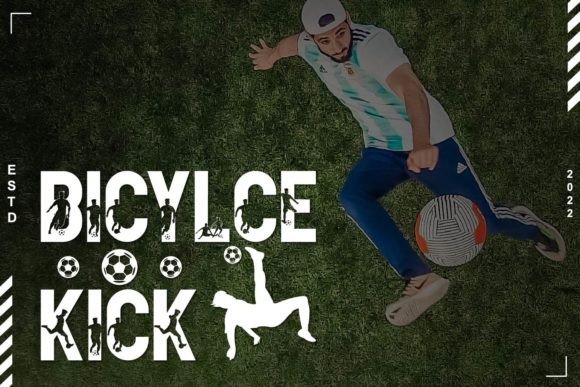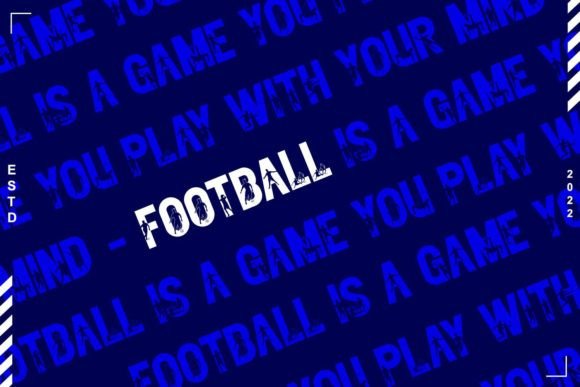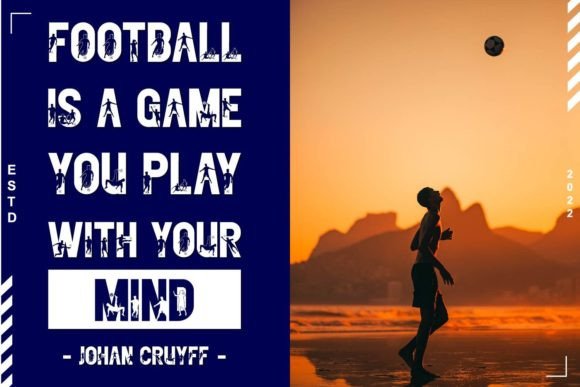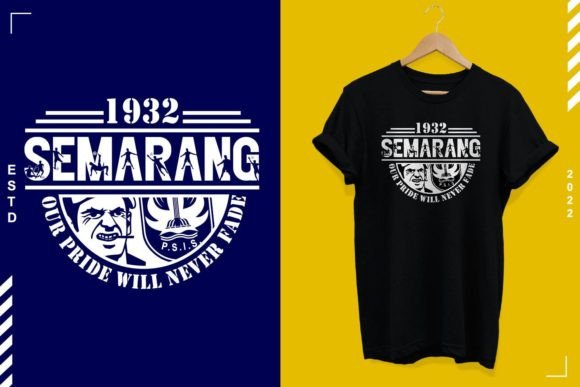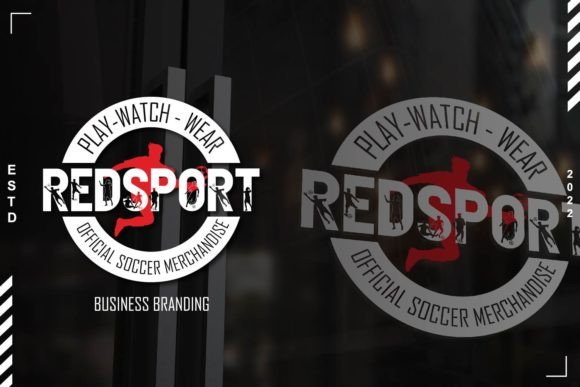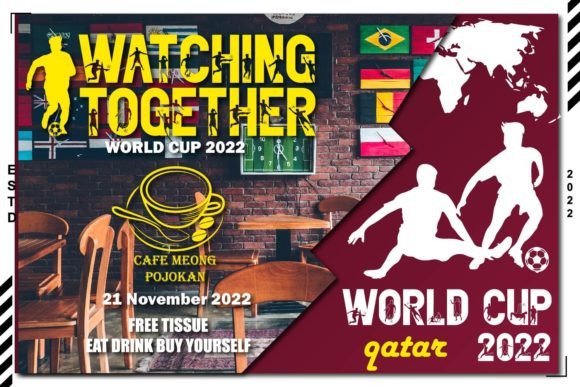
Introducing Football Font: The Ultimate Choice for Sports-Themed Designs
Are you looking for a font that can add a touch of excitement and energy to your designs? Look no further than Football Font! This cool and fun display font is perfect for sporting events, and its bold style is sure to bring life to any design. In this article, we’ll explore the features and benefits of Football Font, and show you how to make the most of it in your designs.
What is Football Font?
Football Font is a stylish and modern display font that is inspired by the world of football. Its clean and bold lines make it perfect for creating eye-catching designs that are sure to stand out. Whether you’re designing a logo, a t-shirt, or a poster, Football Font is the ideal choice for adding a touch of sports flair to your work.
Key Features of Football Font
- Cool and Fun Design: Football Font has a unique and playful design that is sure to add a touch of excitement to your designs.
- Bold and Eye-Catching: The font’s bold lines and clean style make it perfect for creating designs that stand out.
- Perfect for Sporting Events: Football Font is specifically designed for sporting events, making it the ideal choice for creating posters, flyers, and other promotional materials.
- Versatile: Football Font can be used for a wide range of design projects, from t-shirts and clothes to posters and logos.
Benefits of Using Football Font
So why should you choose Football Font for your designs? Here are just a few benefits of using this amazing font:
- Adds Energy and Excitement: Football Font is sure to add a touch of energy and excitement to your designs, making them more engaging and attention-grabbing.
- Perfect for Sports-Themed Designs: If you’re creating designs for a sporting event or a sports-themed project, Football Font is the ideal choice.
- Easy to Read: Despite its bold style, Football Font is easy to read, making it perfect for creating designs that need to be clear and concise.
- Customizable: Football Font can be customized to fit your design needs, allowing you to adjust the size, color, and style to suit your project.
How to Use Football Font in Your Designs
Using Football Font in your designs is easy! Here are a few tips to get you started:
- Pair it with Other Fonts: Football Font pairs well with other fonts, so don’t be afraid to experiment with different combinations.
- Use it for Headlines: Football Font is perfect for headlines and titles, where its bold style can really make an impact.
- Add it to Your Logo: If you’re creating a logo for a sports-themed project, Football Font is a great choice.
- Experiment with Colors: Football Font looks great in a range of colors, so don’t be afraid to experiment and find the perfect shade for your design.
Football Font is perfect for designers and crafters who want to add a touch of sports flair to their work. Whether you’re creating designs for a client or working on a personal project, Football Font is a great choice. Its bold style and clean lines make it perfect for a wide range of design projects, from t-shirts and clothes to posters and logos.
| Font Name | Football Font |
| Author | Mahesa Design |
In conclusion, Football Font is a cool and fun display font that is perfect for sporting events and sports-themed designs. Its bold style and clean lines make it easy to read and perfect for creating eye-catching designs. Whether you’re a designer or crafter, Football Font is a great choice for adding a touch of energy and excitement to your work. So why not give it a try and see how it can bring life to your designs?